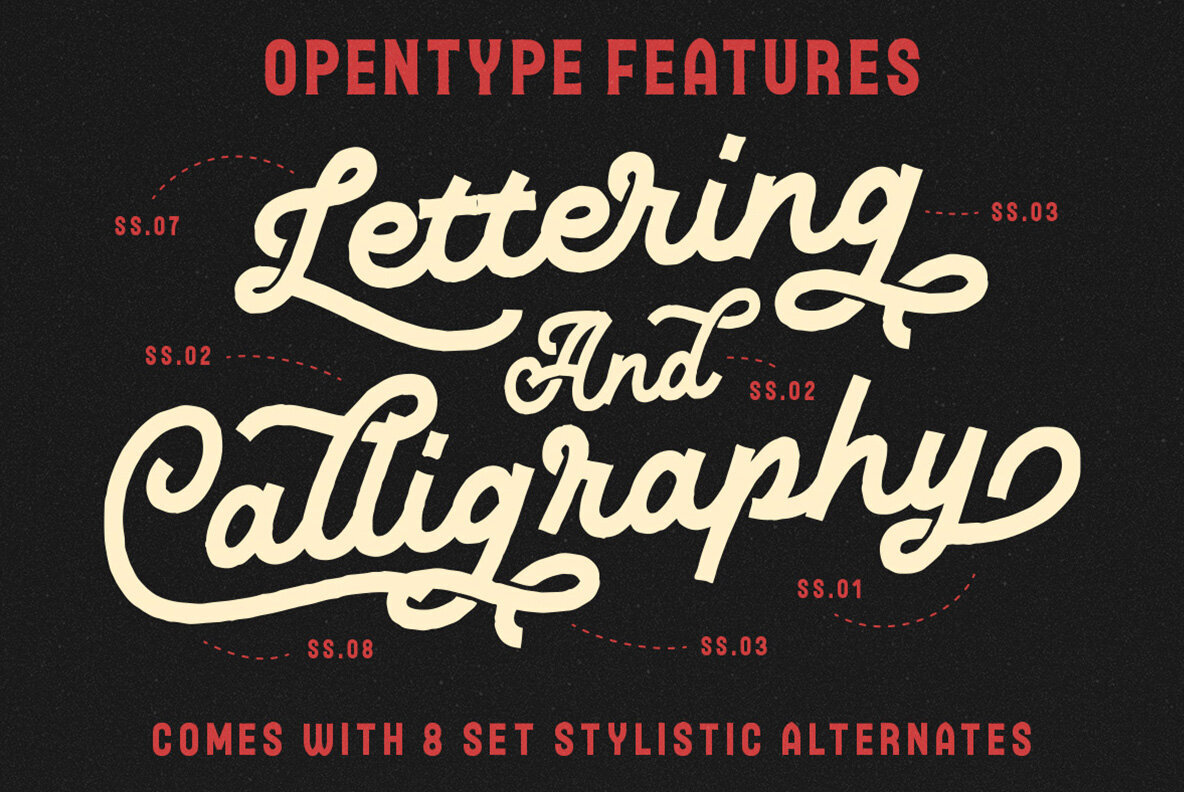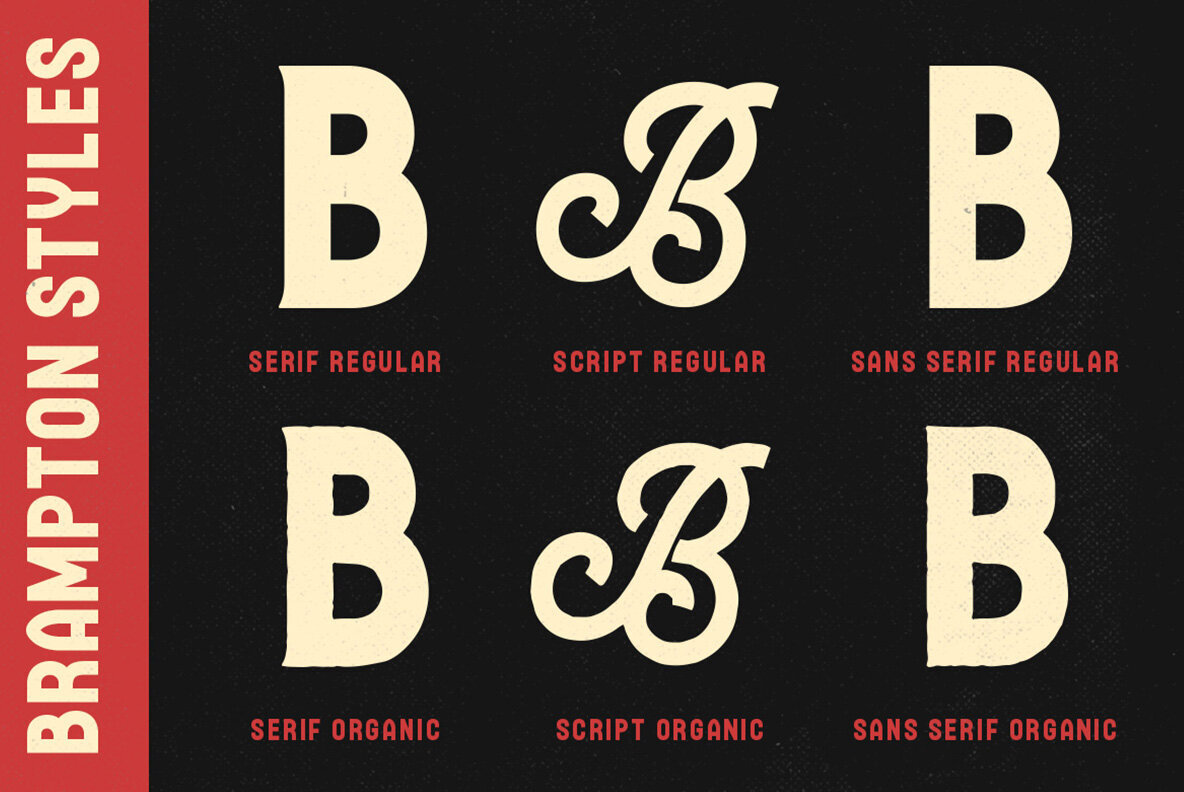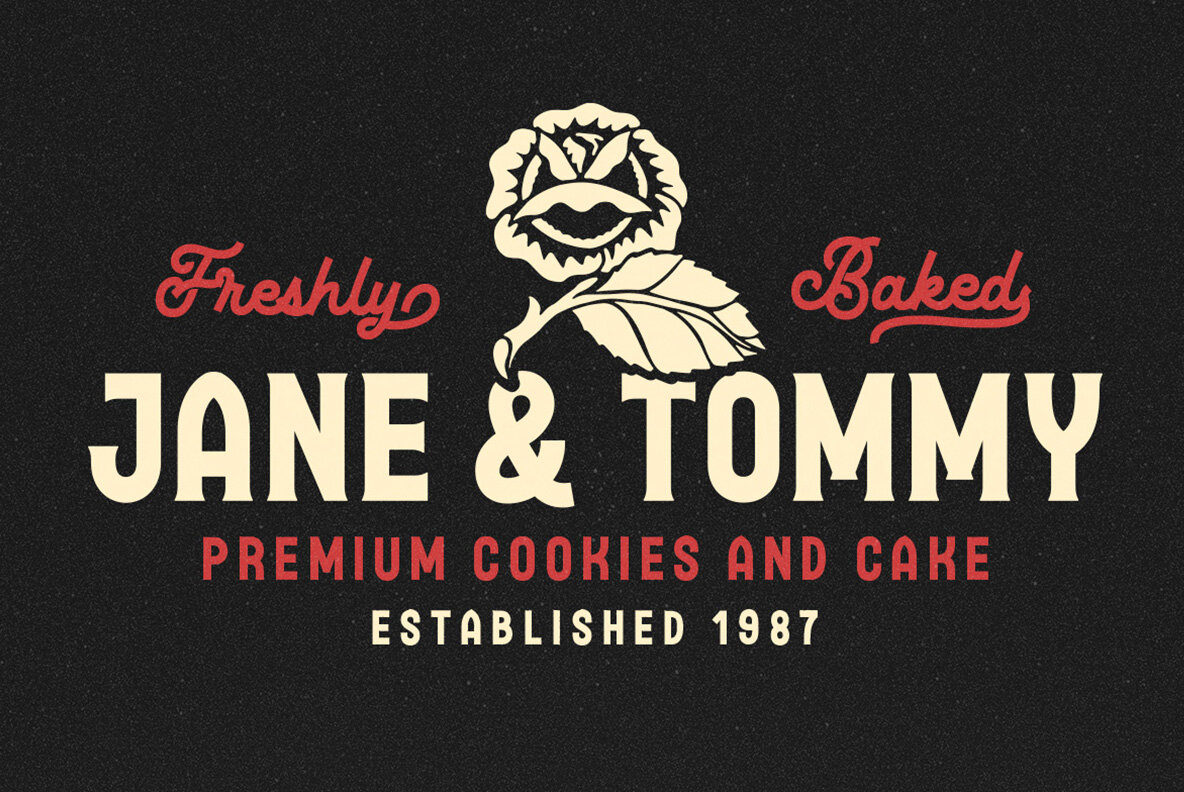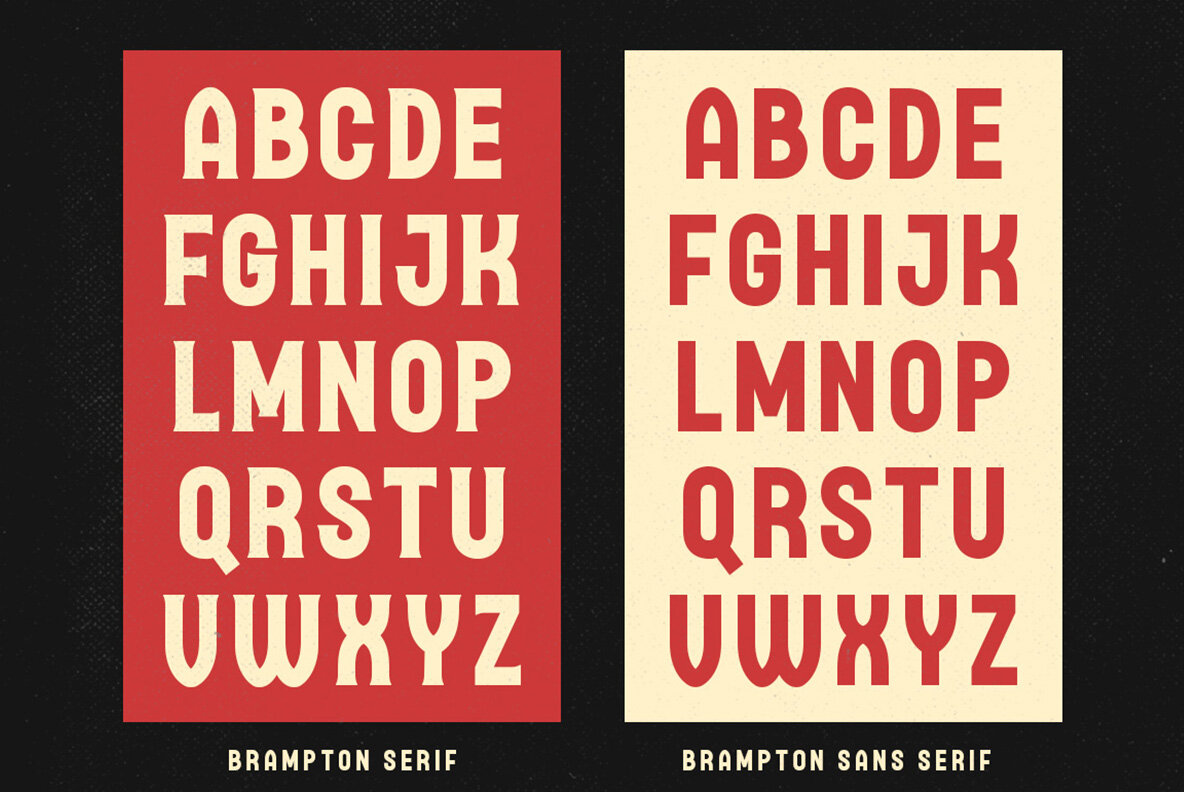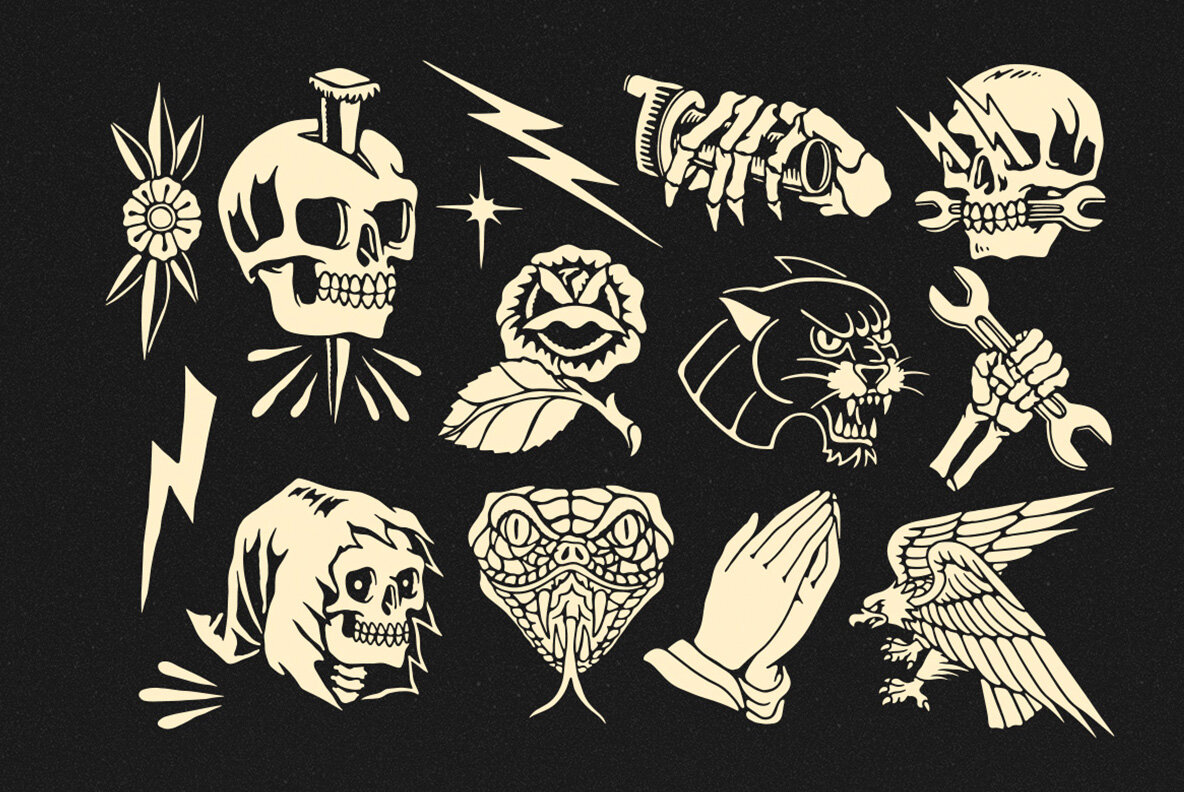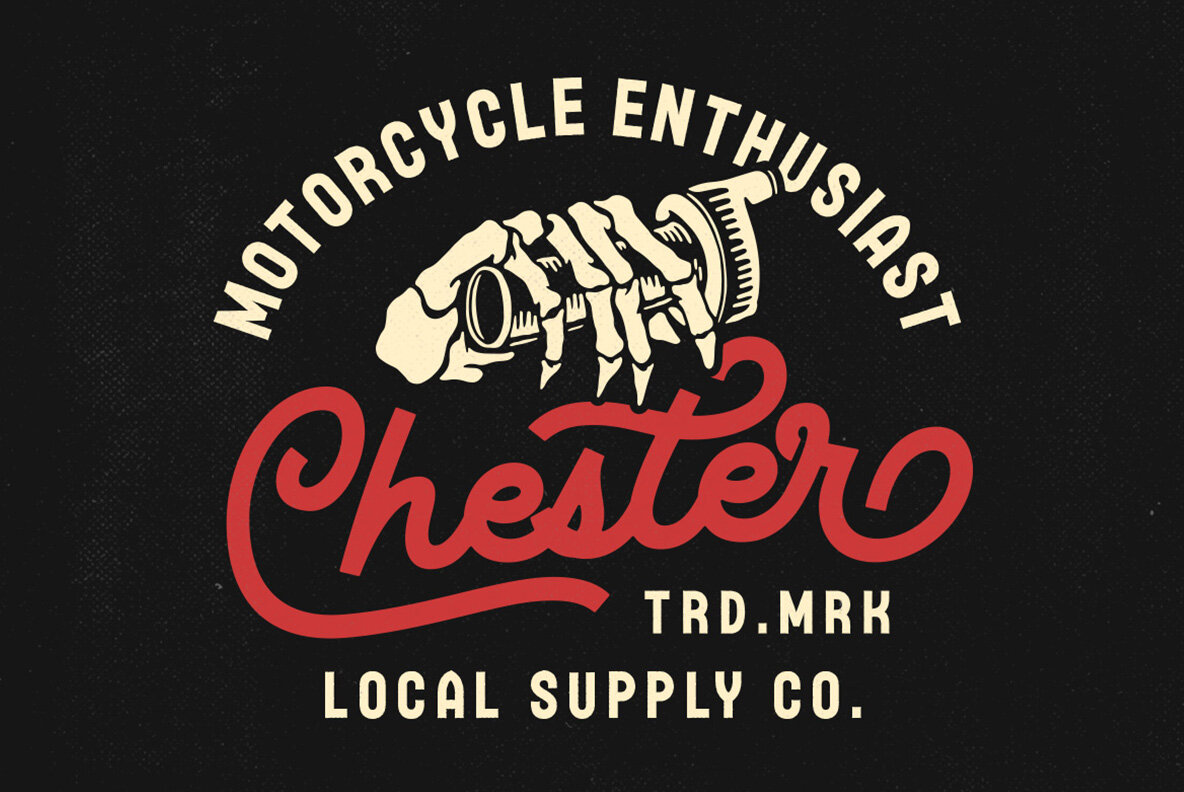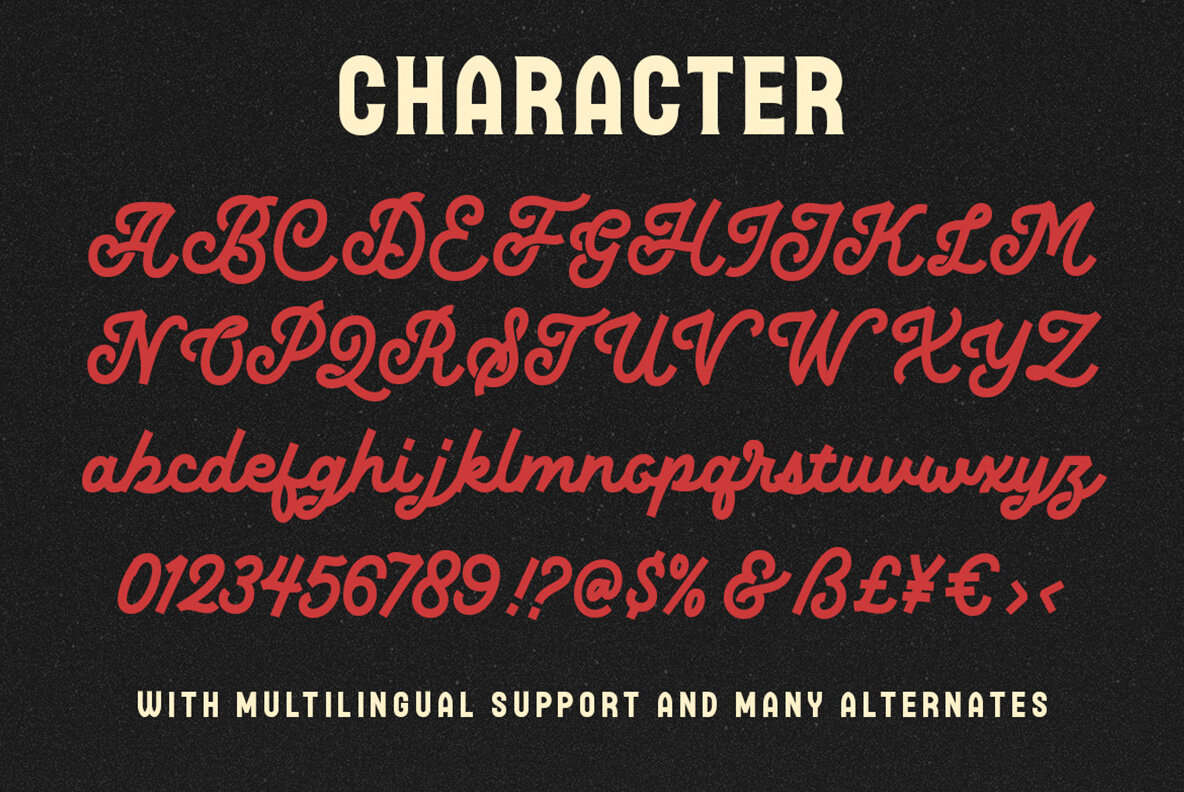
Brampton Font
The Brampton font package by Letterhend Studio offers a trio of monoline script, serif, and sans serif fonts, ideal for those seeking a comprehensive typeface solution. Specifically designed to complement vintage and adventure themes, this package also includes a set of bespoke illustrations to enhance your projects. Brampton is purposefully crafted for headlines, displays, logotypes, and signatures, helping your text make a striking impact. Its versatility shines when used in logos and other formal applications, making it suitable for a variety of contexts such as invitations, branding materials, publishing, and advertising. Features: For optimal use, we suggest employing a design program with OpenType features and Glyphs panels, such as Adobe software or Corel Draw, to fully appreciate the font's detailed variations and possibilities.Brampton: A Versatile Trio of Fonts for Vintage and Adventure Themes
Perfect for Standout Designs